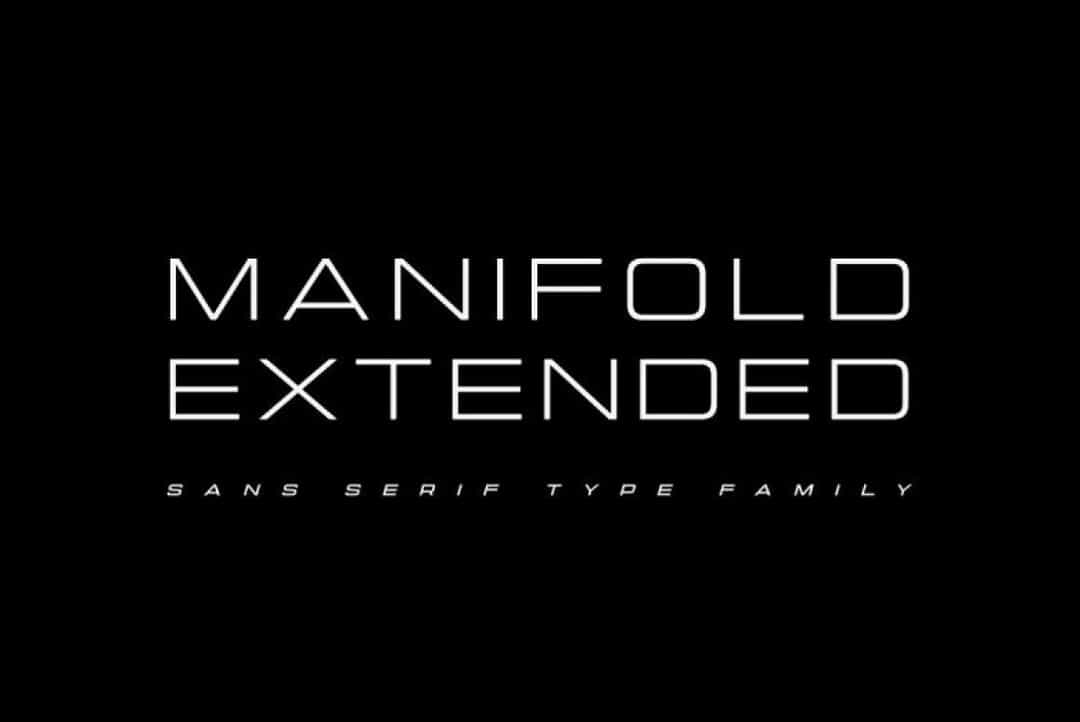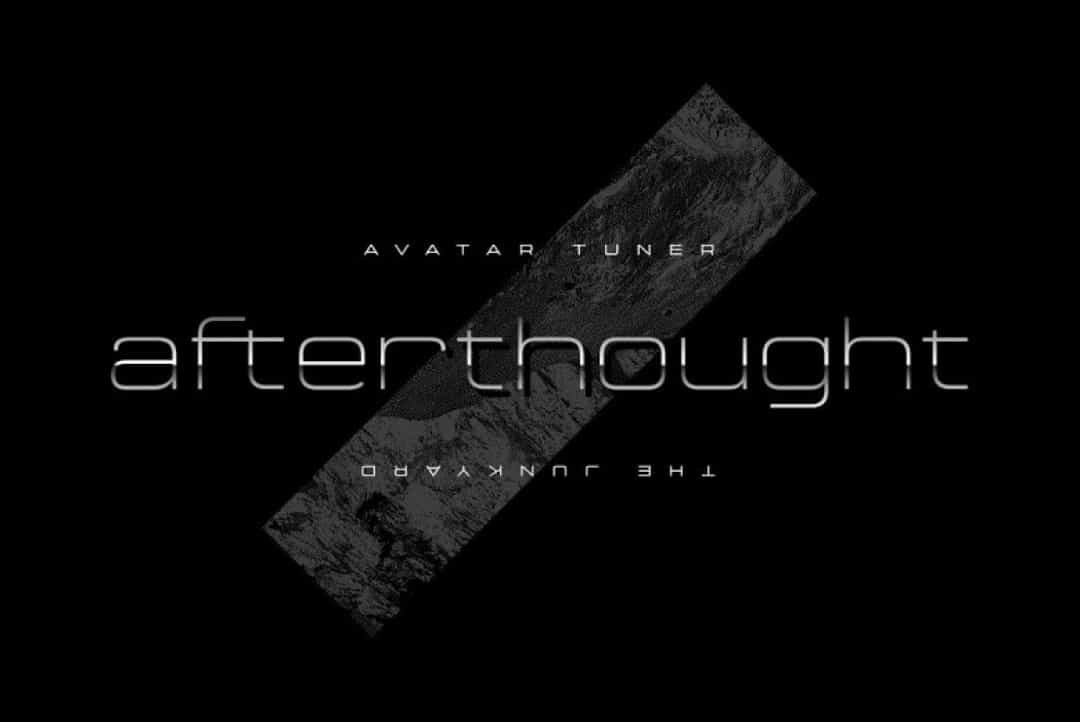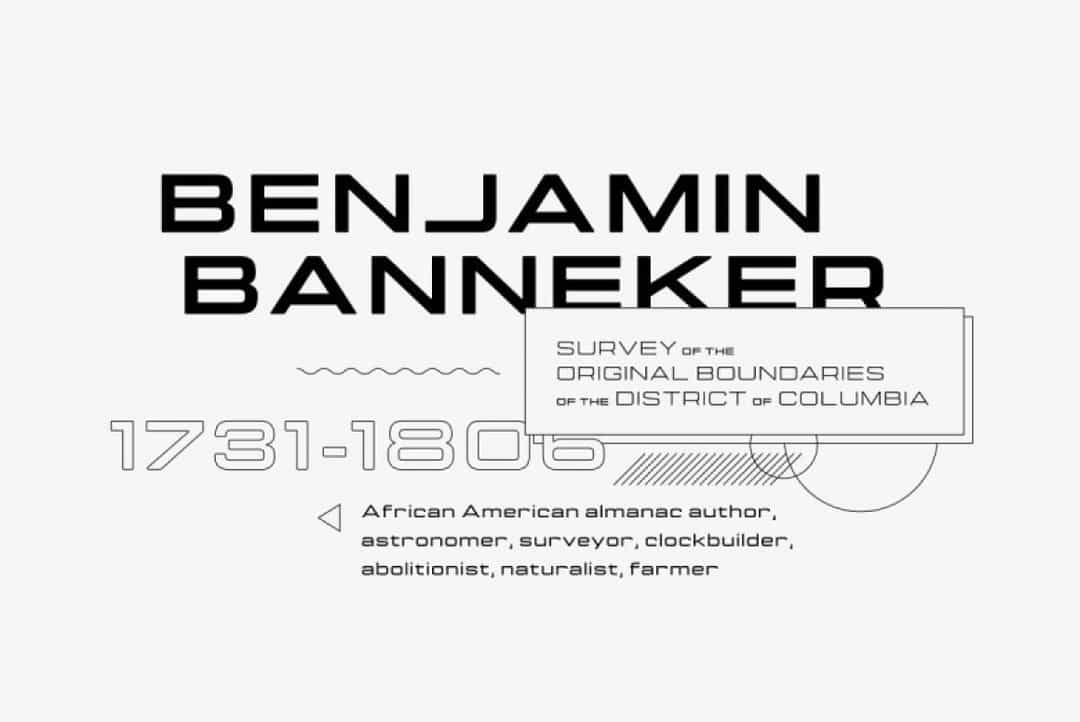
Elegant, sophisticated, and elegant – Manifold Extended Font is an exquisite variation on the Manifold family of fonts with clean elongated lines that exude both sophistication and grace. Ideal for logotypes, titles user interfaces or short text text content creation and use.